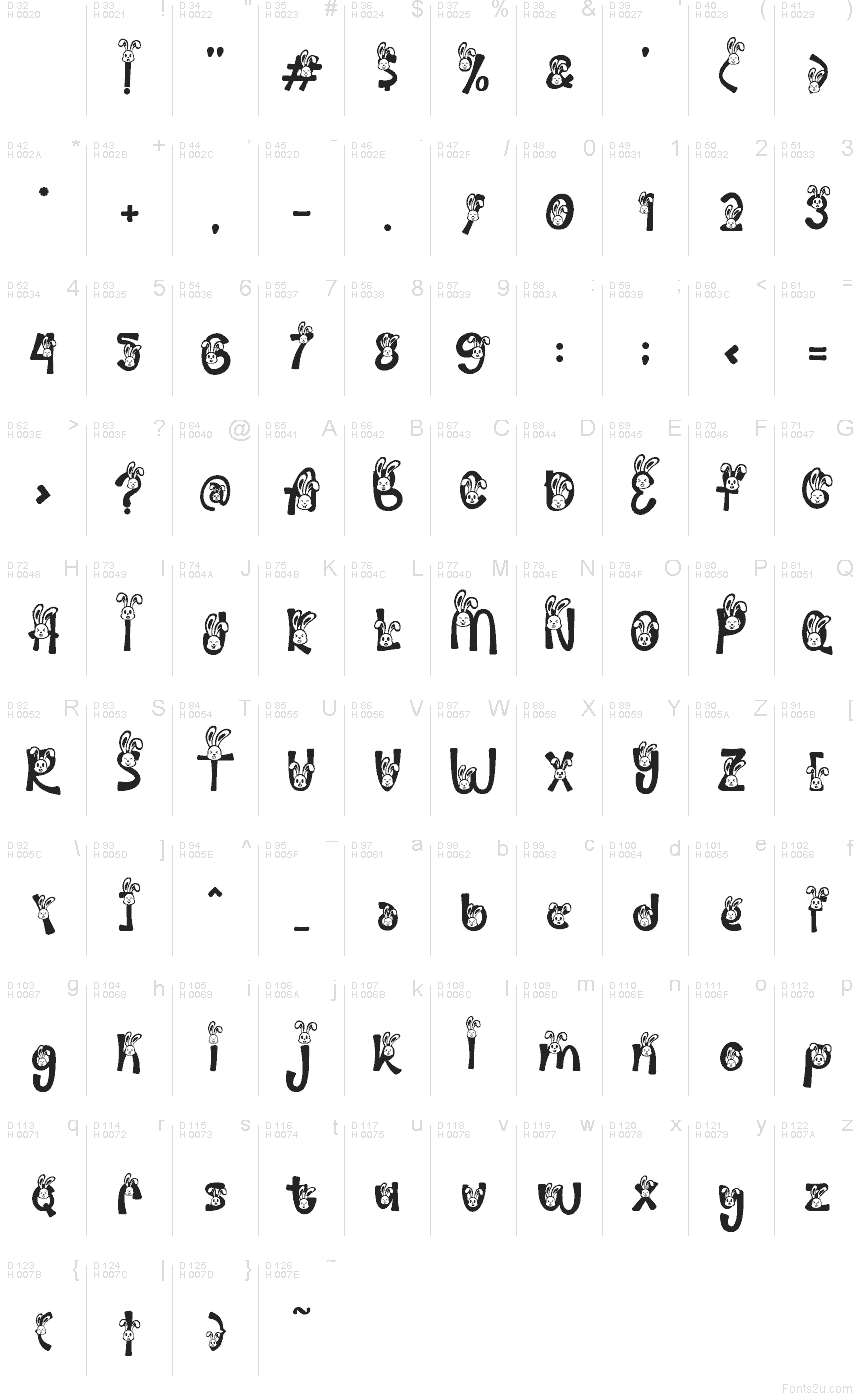
Palm Sunday Bunny Head
Palm Sunday Bunny Head font by Putracetol Studio is a free Easter decorative font with rounded letterforms that are topped and interrupted by bunny ears and small rabbit faces. The shapes mix simple, hand-drawn curves with a soft cartoon outline, so the whole set feels tied to spring and holiday craft work.
Palm Sunday Bunny Head works well for Easter cards, seasonal labels, party invites, scrapbook titles, nursery decor, and spring sale signs because the bunny motif is built into the letter shapes themselves. This free font can also bring a playful holiday accent to poster headers, gift tags, and decorative banners where a themed alphabet matters more than plain text.